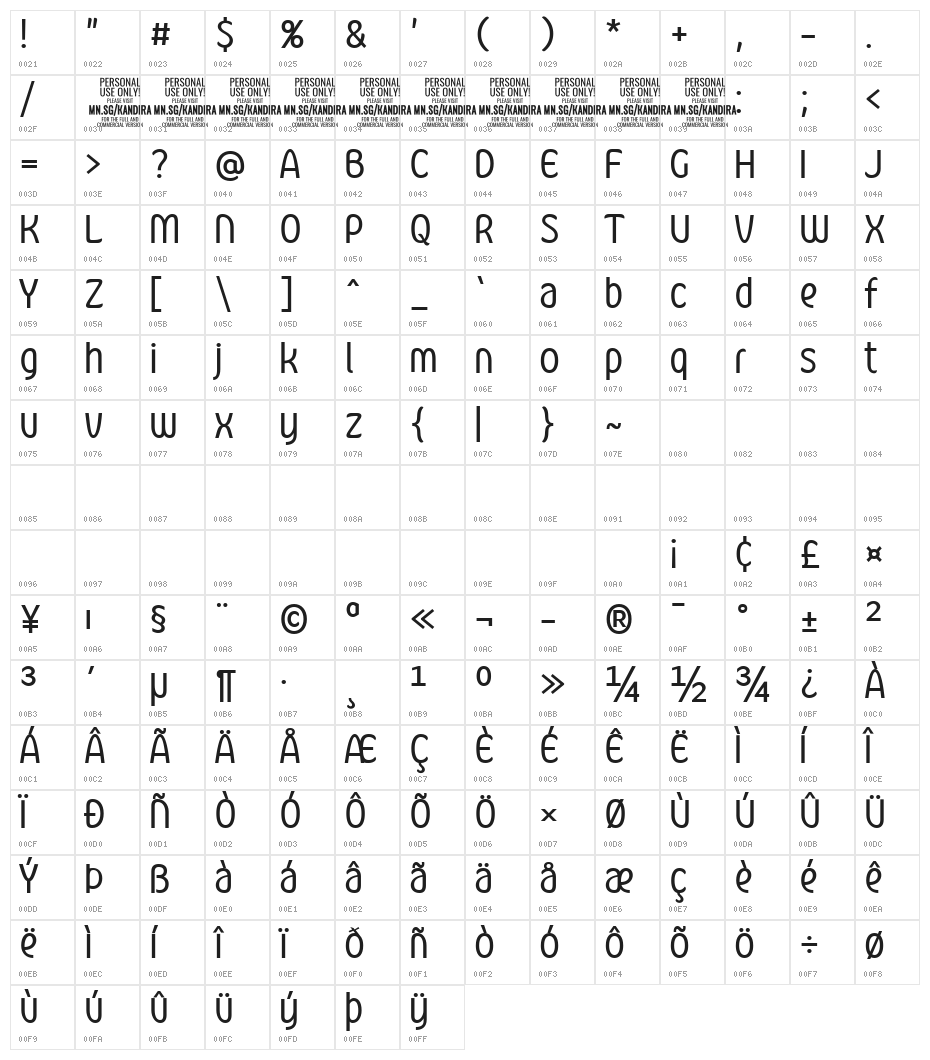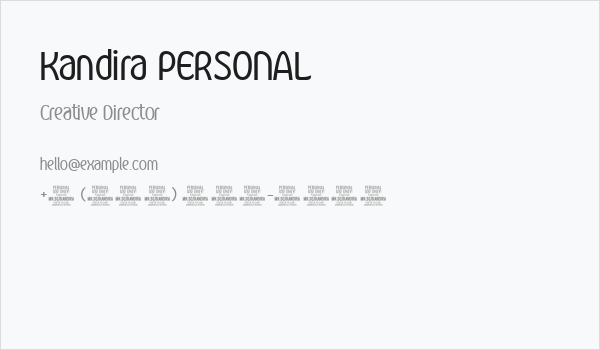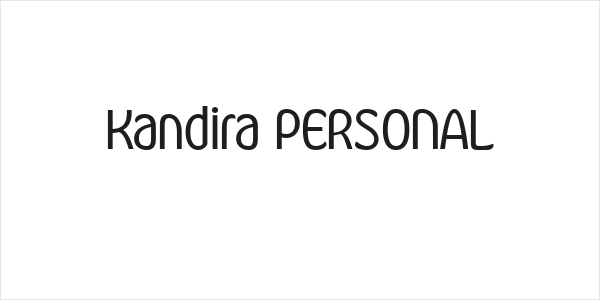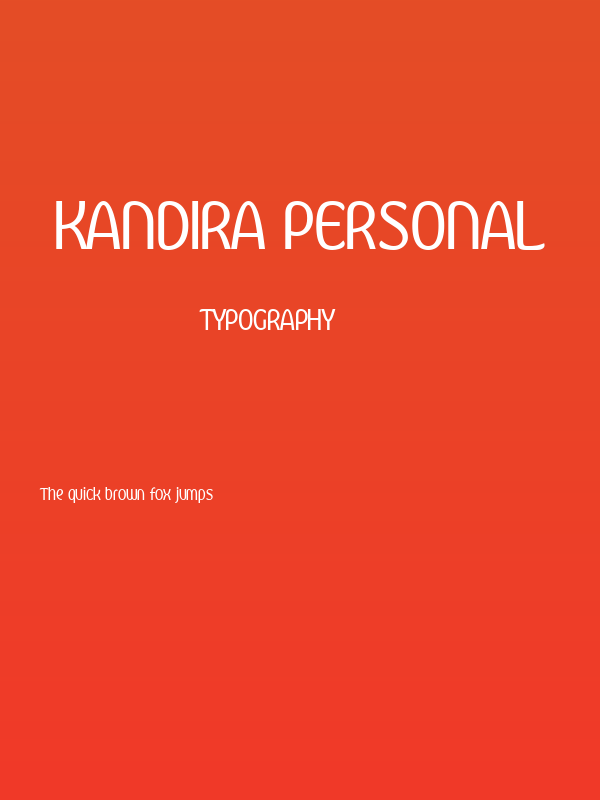
Kandira PERSONAL Font
Kandira PERSONAL Description
This font features a sleek and modern design with smooth curves and a clean, sans-serif style. The uppercase and lowercase letters are well-proportioned, offering a harmonious balance that enhances readability. The numerals and special characters maintain the same aesthetic, ensuring consistency across all text elements. The font's simplicity and elegance make it versatile for various design applications, while its contemporary look adds a touch of sophistication.
| Proposed Projects | Ideal for branding, advertising, web design, and modern editorial layouts. |